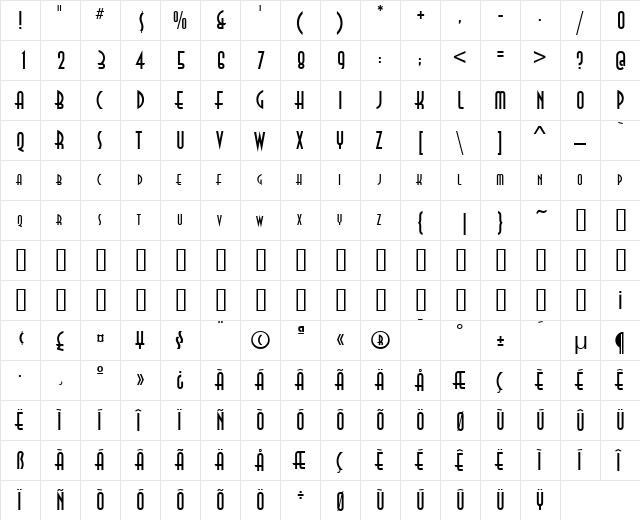
Asia Normal
Design Context for Asia Typeface
Asia is a composed and adaptable typeface that performs quietly and consistently across a wide range of design contexts.